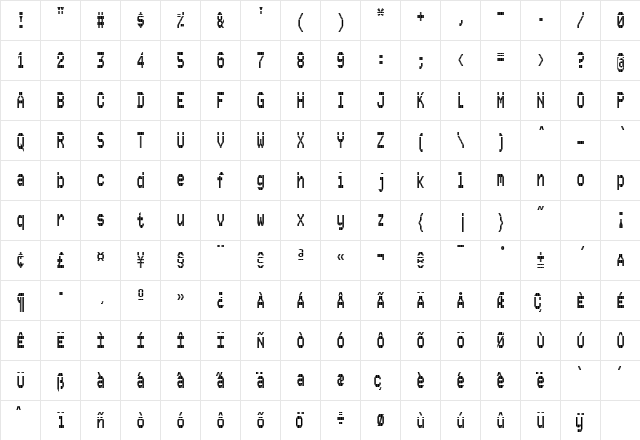
Luggagetag One Regular
Design Context for Luggagetag One Typeface
Luggagetag One is a composed and adaptable typeface that performs quietly and consistently across a wide range of design contexts.